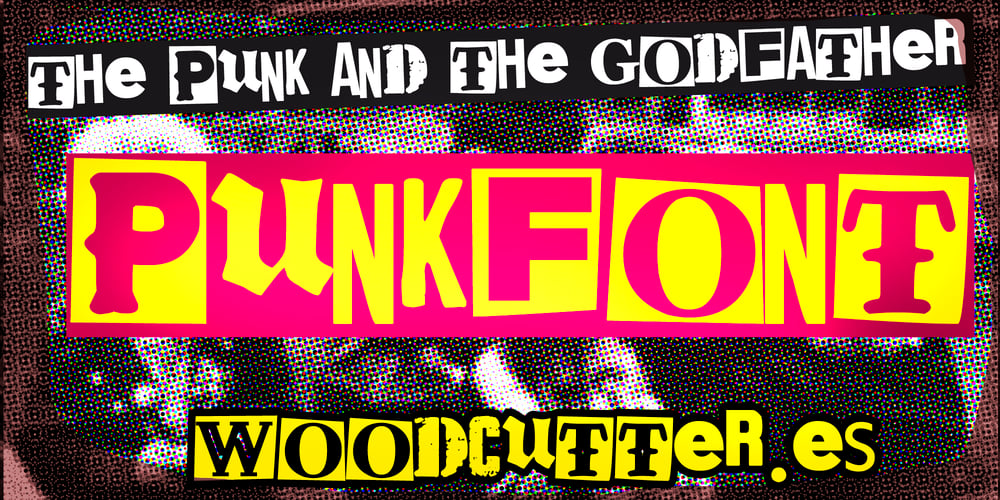
The Punk And The Godfather
The Punk And The Godfather font
The Punk And The Godfather Font Family was designed by Jordi Manero and published by Woodcutter. The Punk And The Godfather contains 1 styles and family package options. “The Punk And The Godfather” is a font that captures the rebellious and anarchic essence of 1980s punk. With distorted and unique letters, each character has its own chaotic style, evoking the aesthetics of the fanzines from that era. This typeface is ideal for projects aiming to convey a defiant and countercultural attitude. Perfect for posters, album covers, and any design that requires raw and authentic energy. “The Punk And The Godfather” infuses your text with the intensity and irreverence of punk, combining visual chaos with a strong graphic impact.